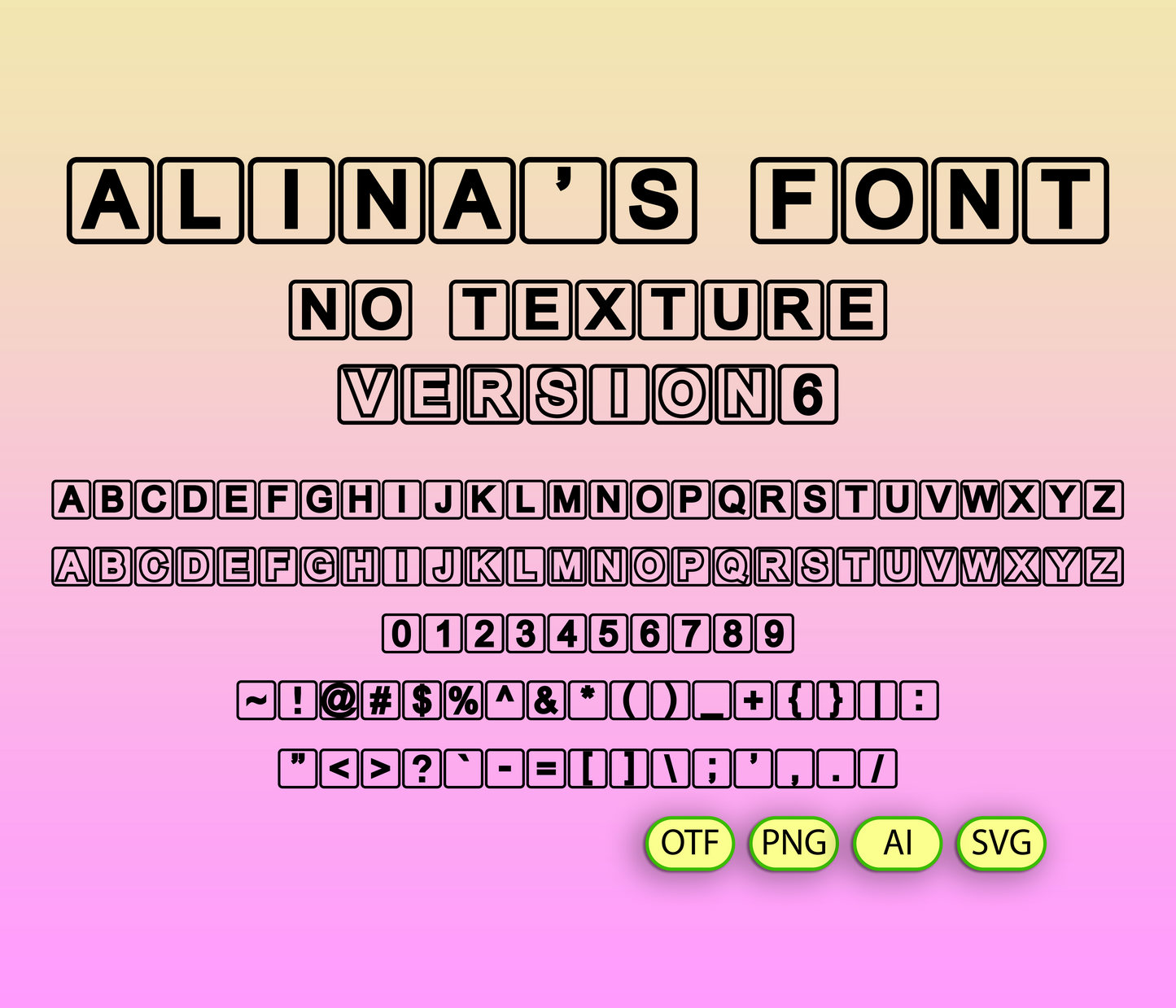
Educational Counting Characters Font Plain Style
Step into the colorful world of numerical learning with our Educational Counting Characters Font Plain Style, capturing the essence of mathematical discovery and playful number adventures. Perfect for early childhood educators, family event planners, content creators, and creative professionals, this font brings the bright, engaging spirit of numerical character stories to your projects. Create eye-catching invitations, merchandise, or digital content with the educational energy of counting exploration narratives.
Bold Typography for Educational Design & Learning Projects
Our Educational Counting Characters Font Plain Style features playful, stylized letterforms with smooth, clean surfaces reflecting the world of animated numbers and mathematical learning settings.